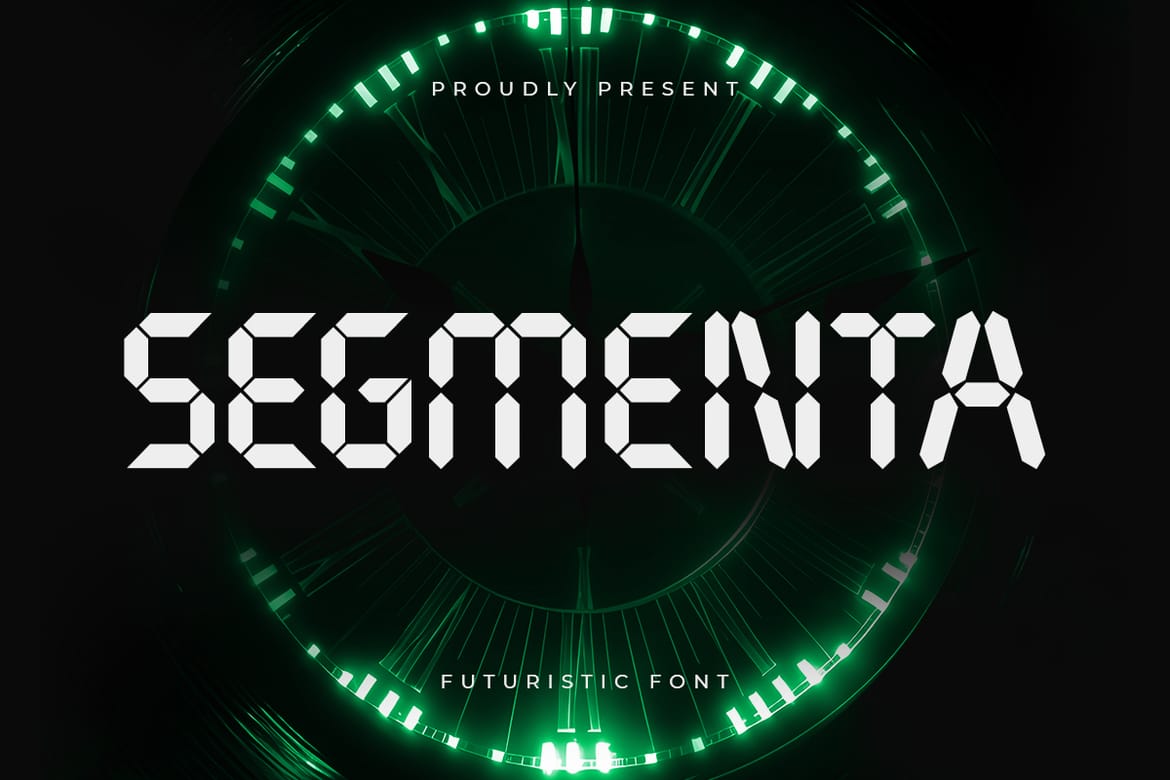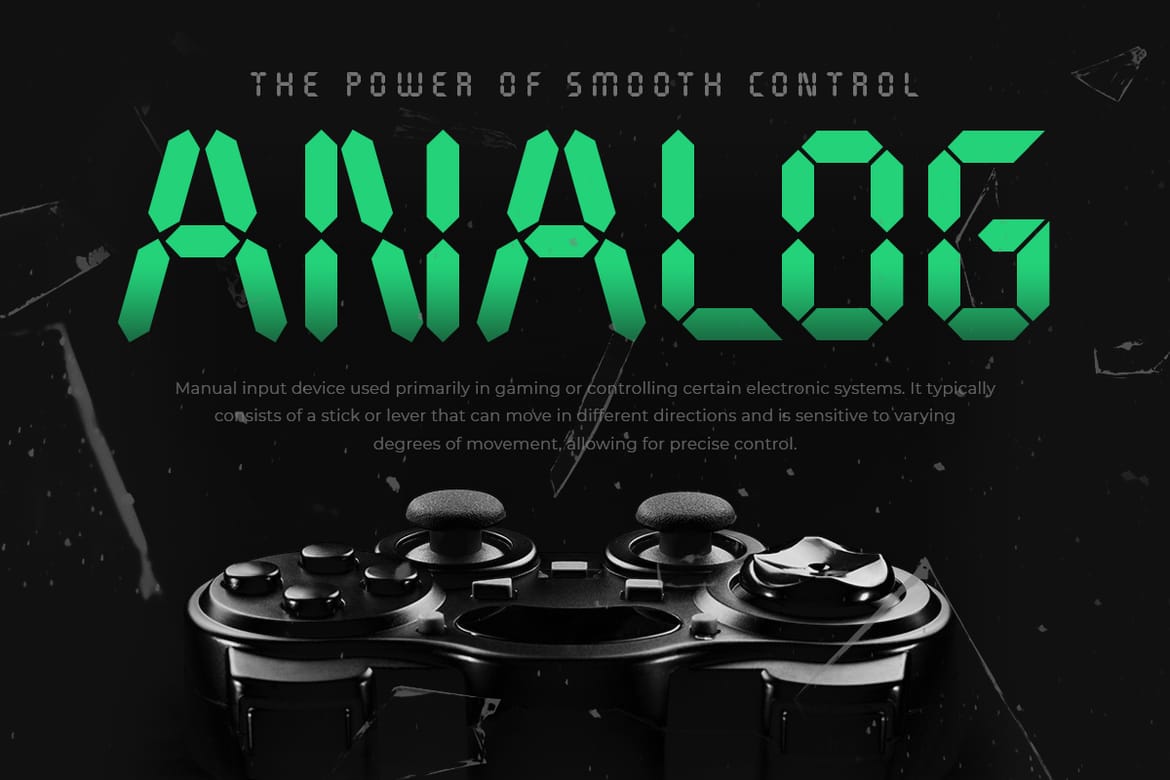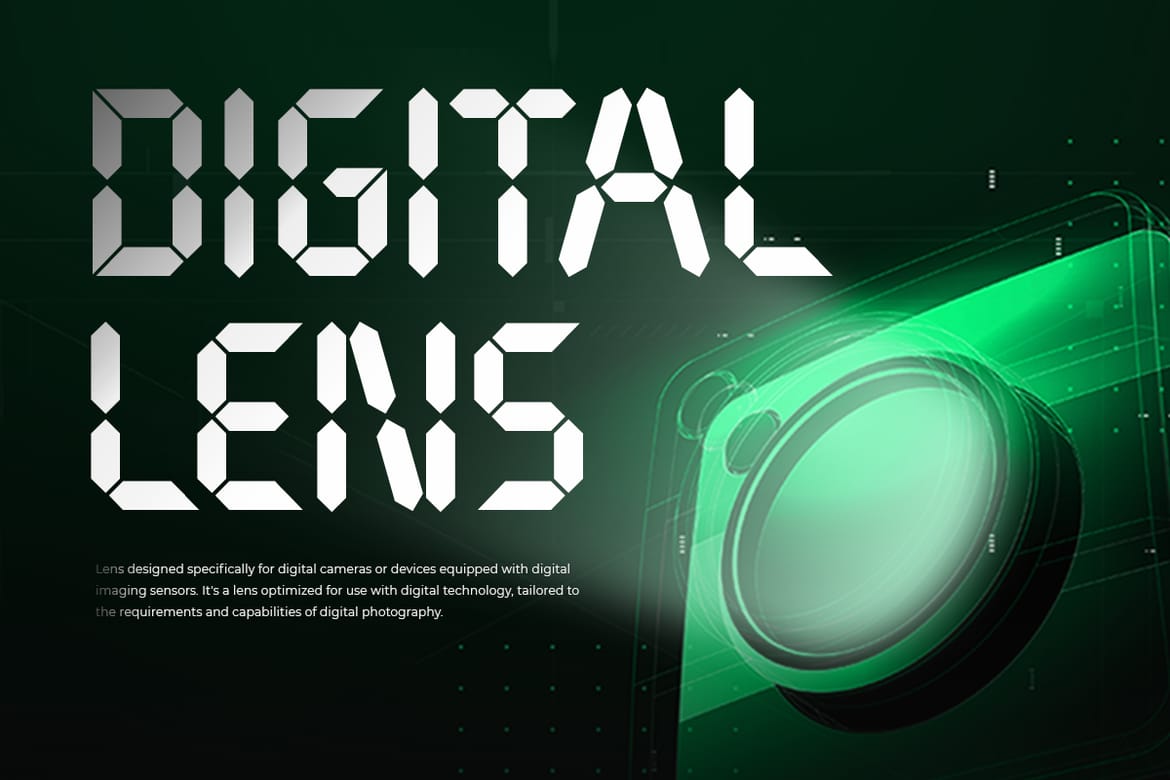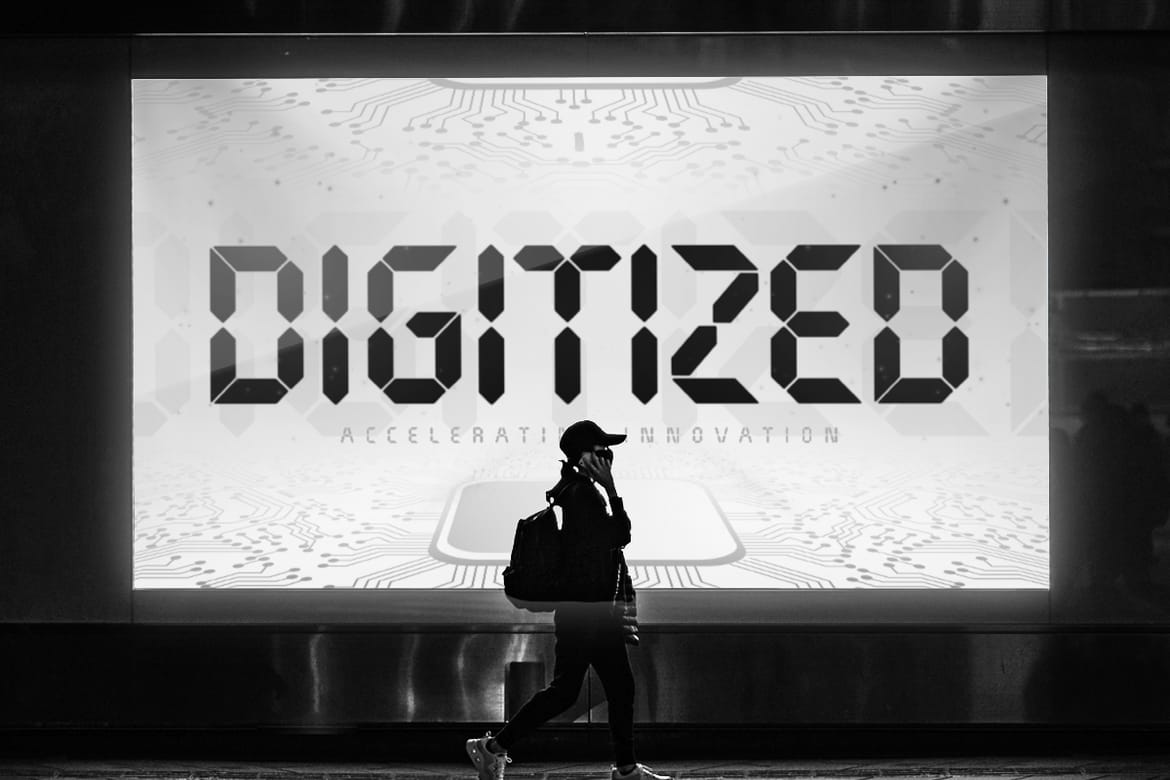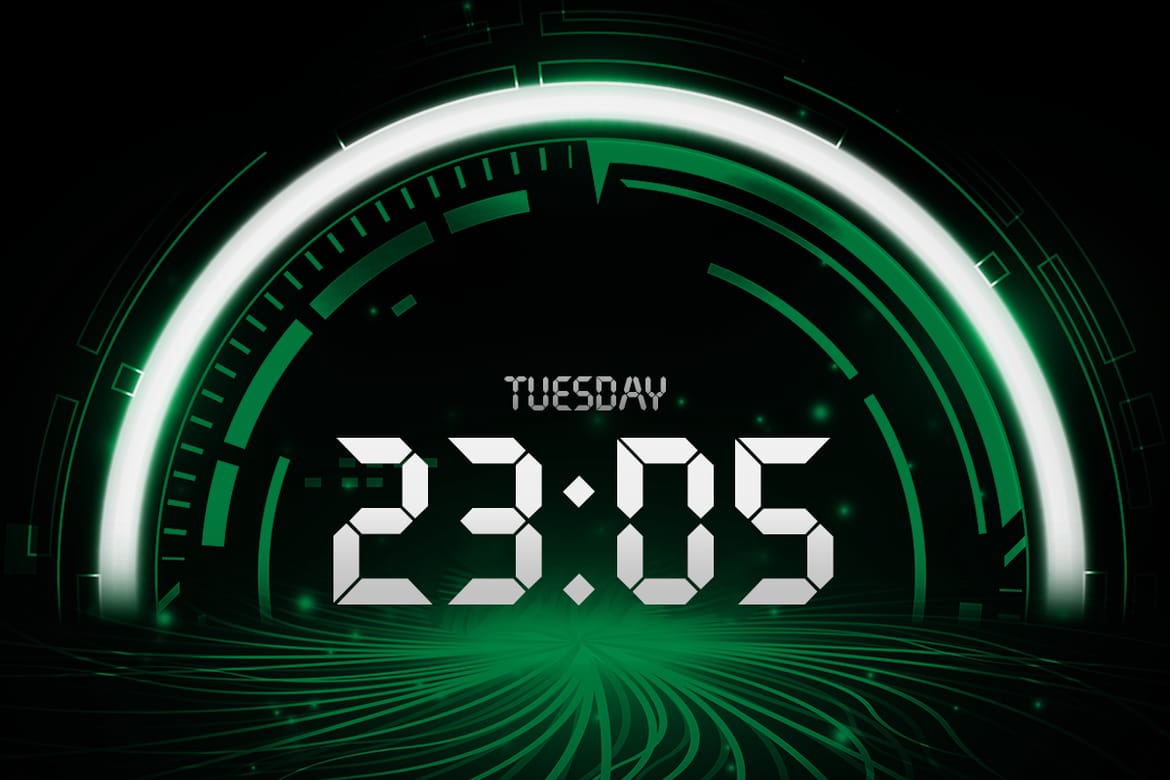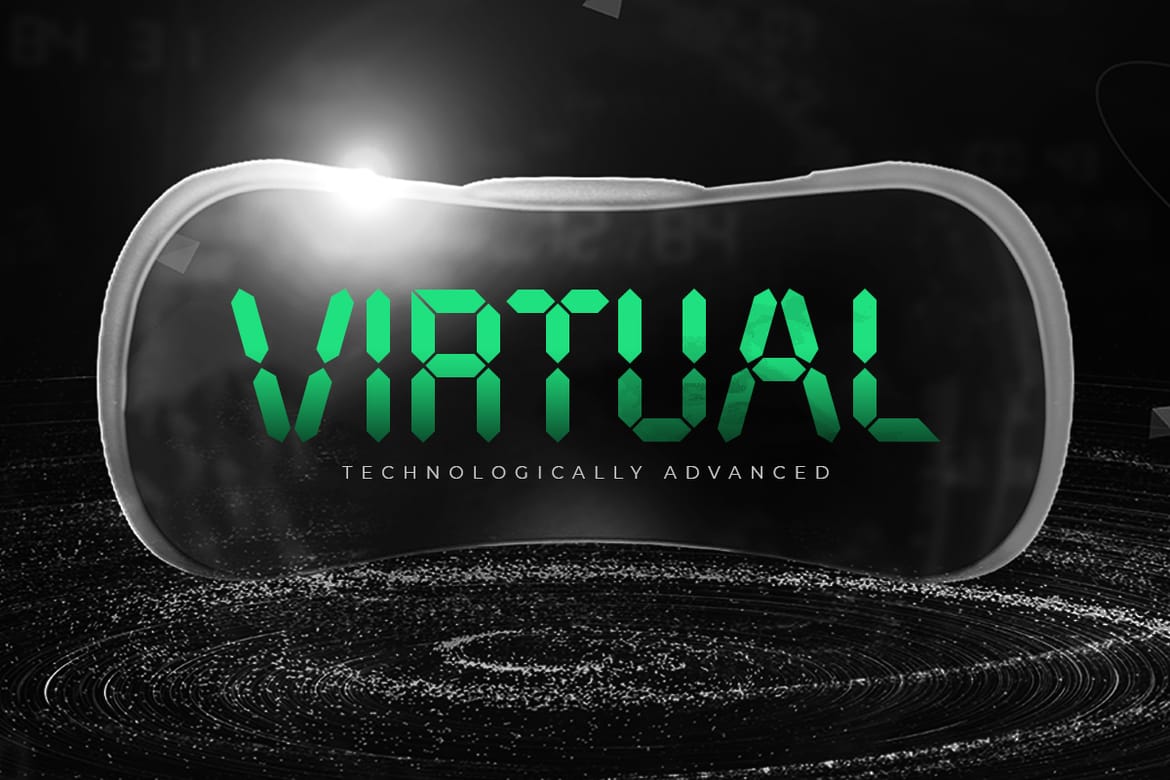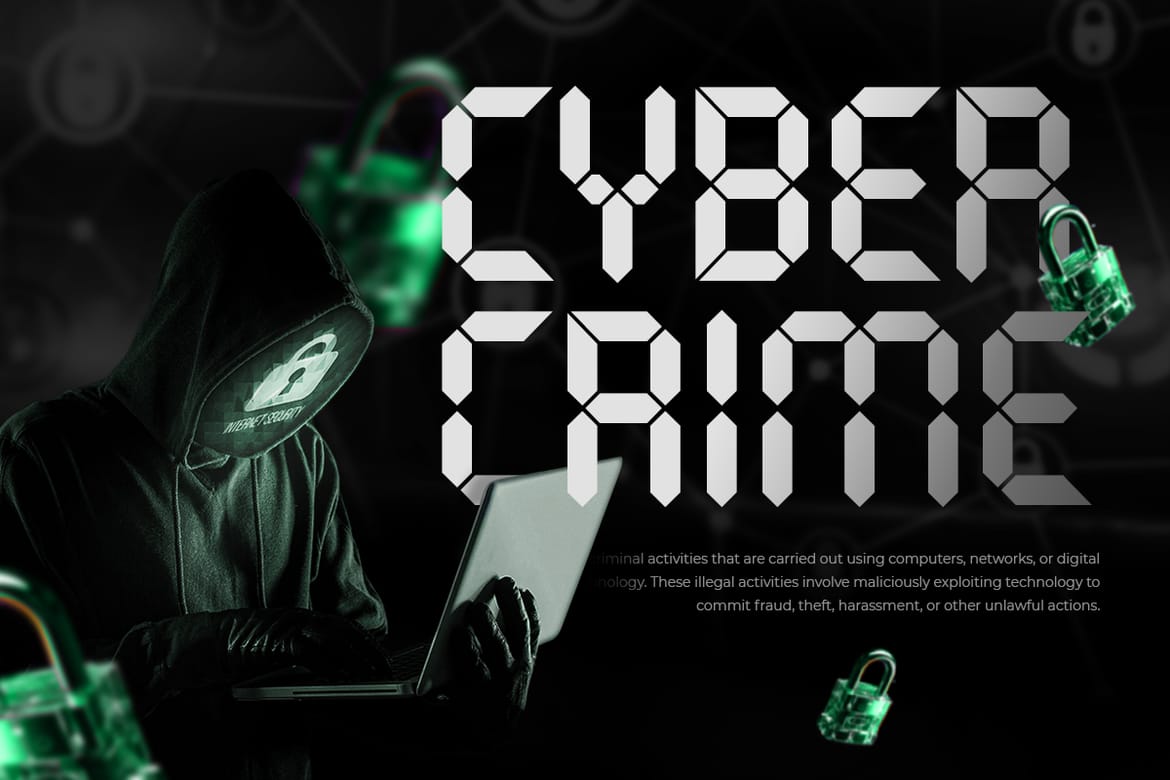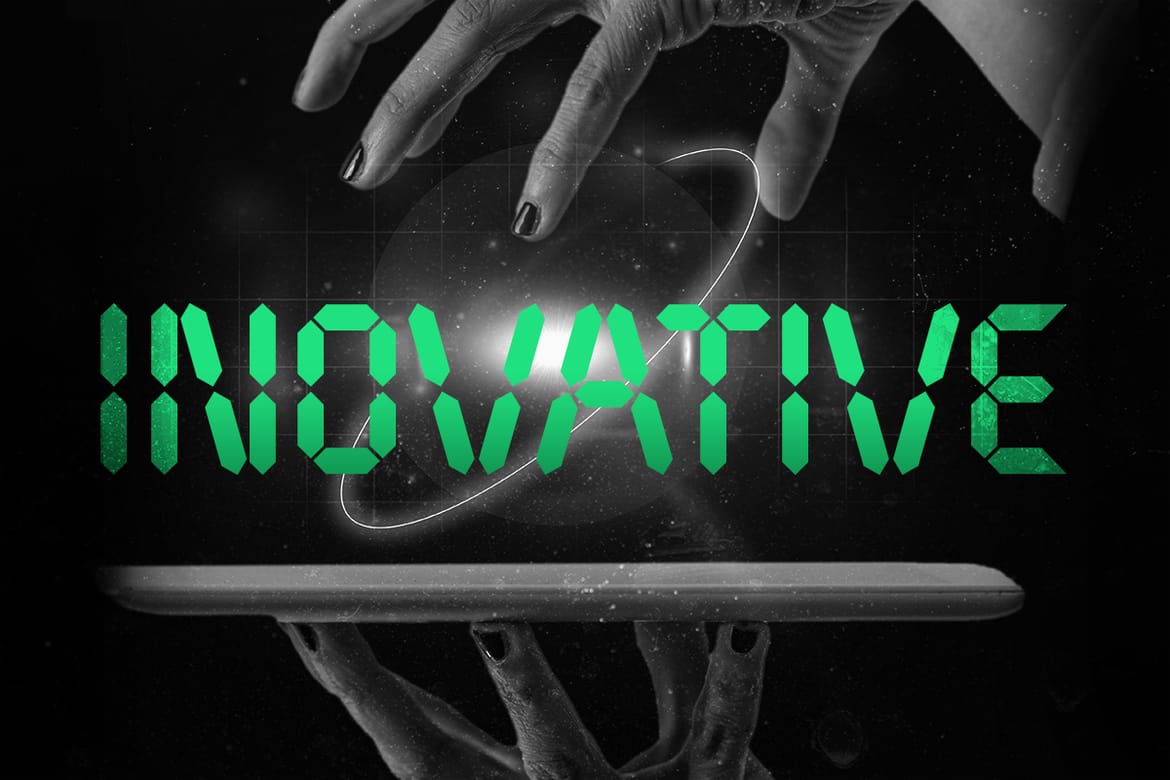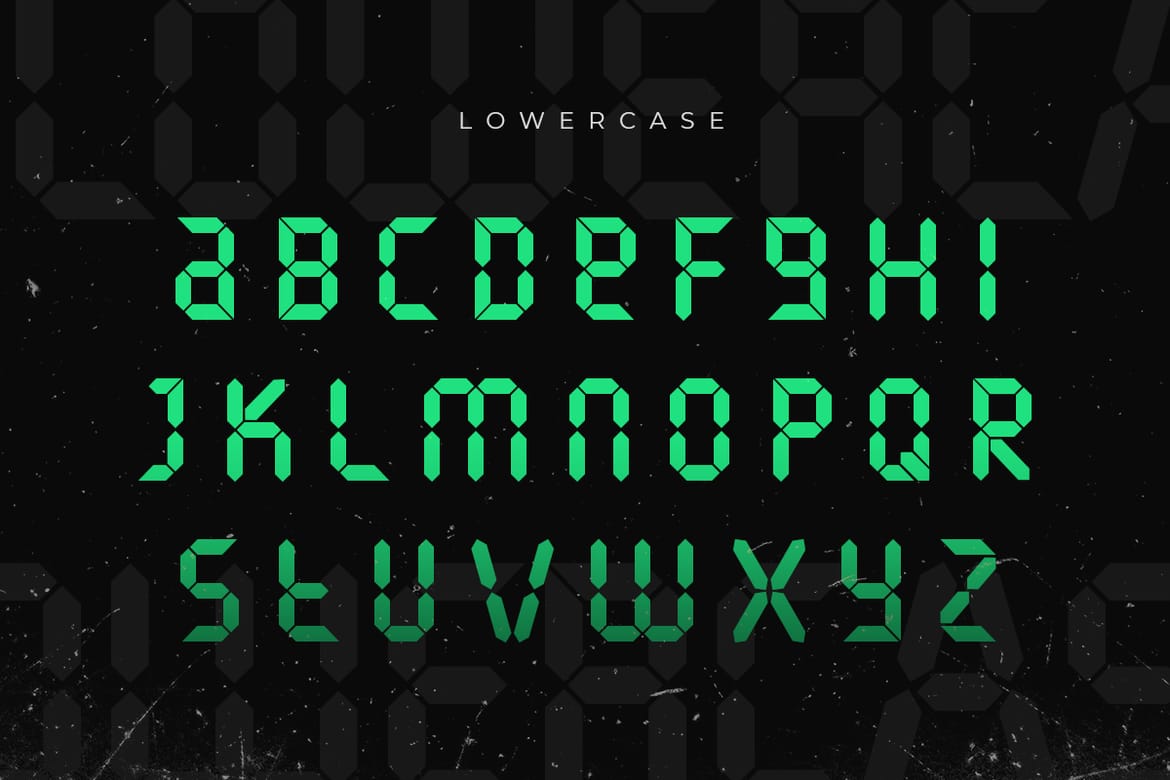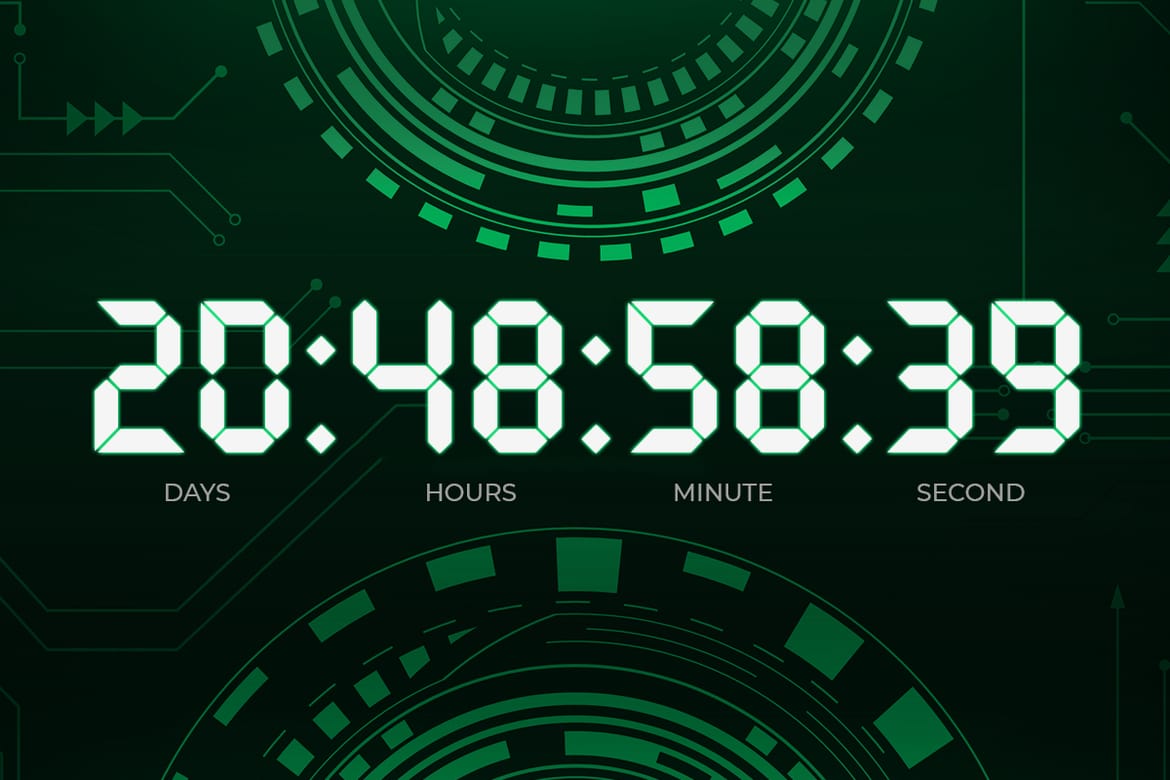
Segmenta is a Futuristic Seven Segment Font that created special for Digital design, Binary Look, Sci-fi, Modern, Technology and more stand out typography needs, with extra perfect styles that make your design more Futuristic. It's so perfect to add your style and headline overview for Cryptocurrency, technology, film, and Sci-fi theme. And specially for this font, we crafted for modern style and technology feels so enjoy to create any project that will show your main idea out.
Futuristic characters prepared to get creative alternatives in Technology theme
Ready with Technology characters